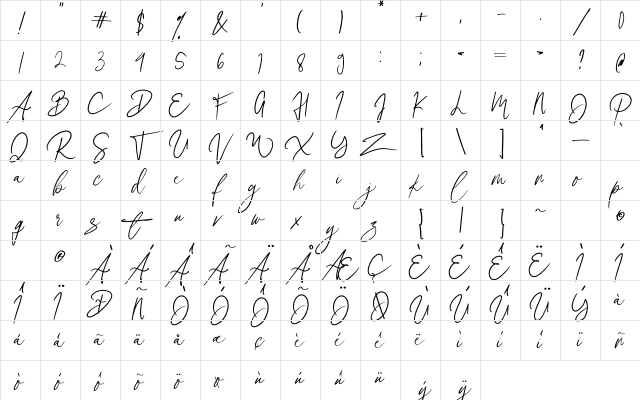
Wolussy Beauty Regular Free Font
Wolussy Beauty Regular
Designer: Laire Banyu Sandi Pawenang
Design Context for Wolussy Beauty
Wolussy Beauty is a composed and adaptable typeface that performs quietly and consistently across a wide range of design contexts.